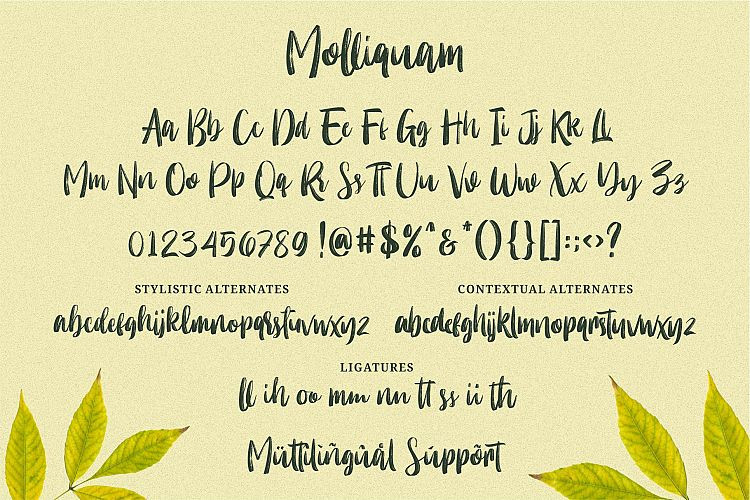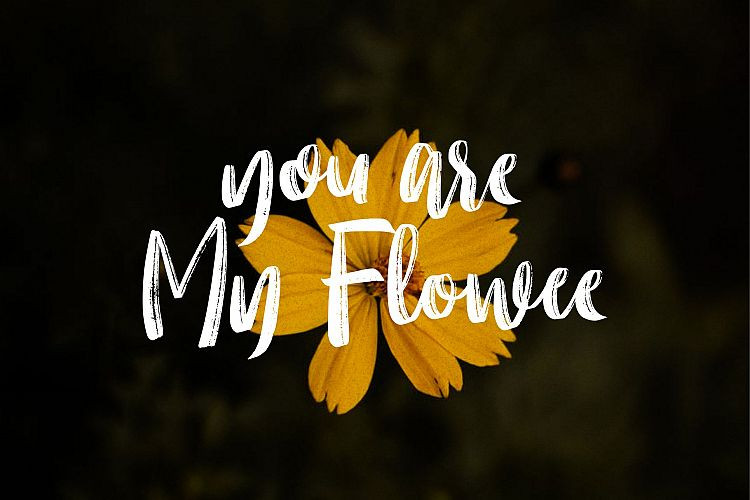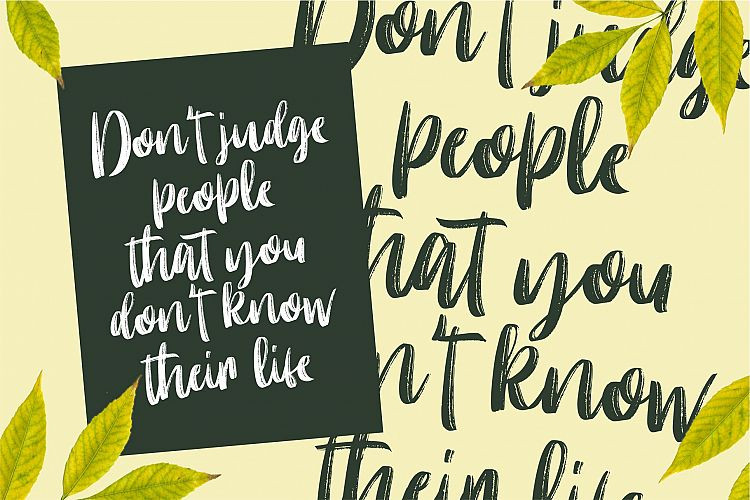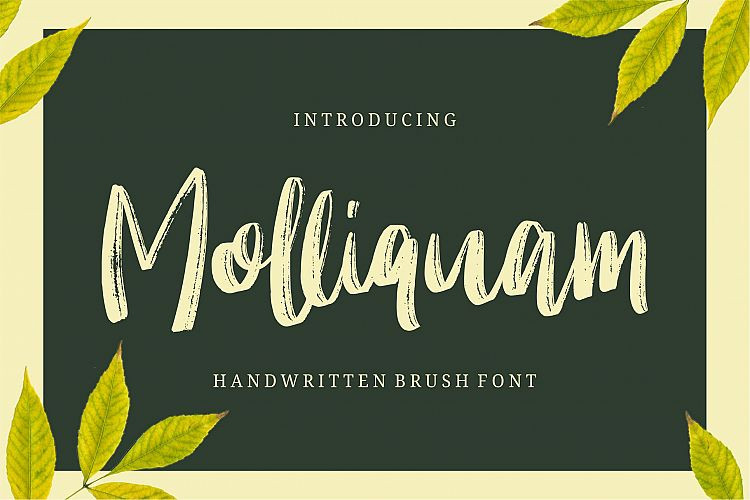
Molliquam Brush Font
Molliquam Brush Demo Font
Molliquam Font is a modern brush font. Molliquam Brush Font starts from a brush stroke with a script style and also follows the times. Molliquam is very suitable for use in various media such as; packaging, logo, label, poster, shirt design, quote of wisdom, handlettering, typography and many other media.